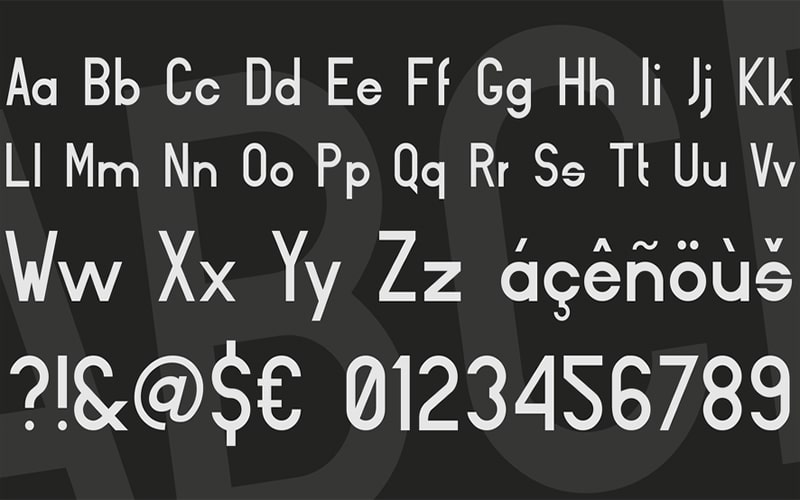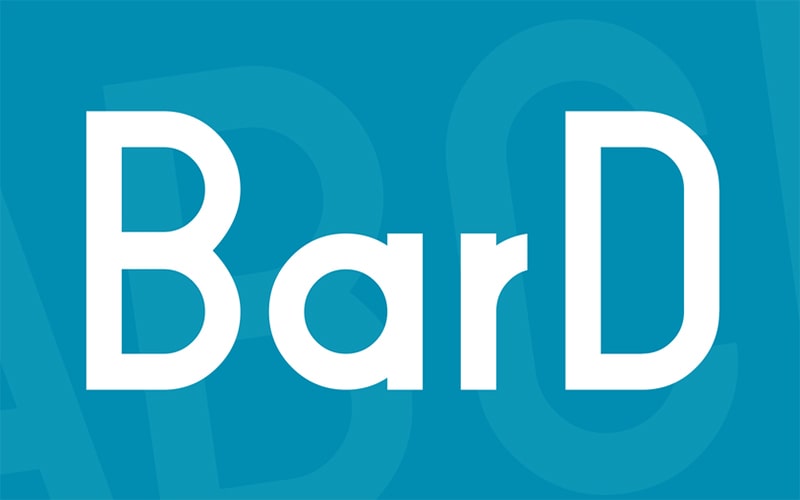
Bard Font is a Various, Sans serif typeface. It is best for design projects and lettering styles. This font was designed by Typesgal. Typesgal is from Hungary. He do type designing and lettering as a hobby since 2008.
He only prefers handmade stuff so draws everything by hand first, and then he digitalizes. The letterings that we can see in his gallery are all drawn by himself.
This Bold regular font family has come with two styles available such as Bard Normal, and Bard Italic. That’s why several designers want to work with this high-quality regular font for upcoming design projects.
It consists of 188 glyphs and 238 defined characters with 4096 Units per Em from the Unicode range Basic Latin, 1 Latin-1 Supplement.
This fine-quality font has come with 82 characters set like 26 uppercase letters, 26 lowercase letters, and 10 numbers. Also, it has 20 special symbols, including punctuation marks.